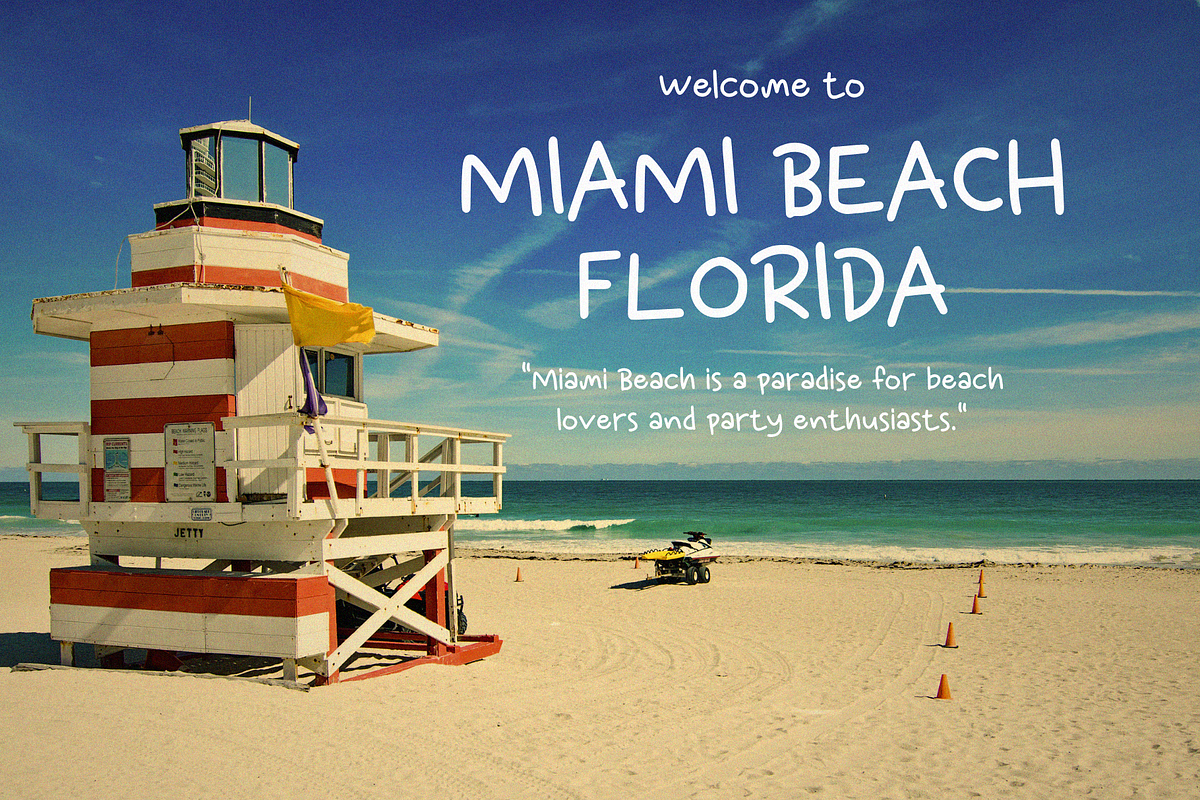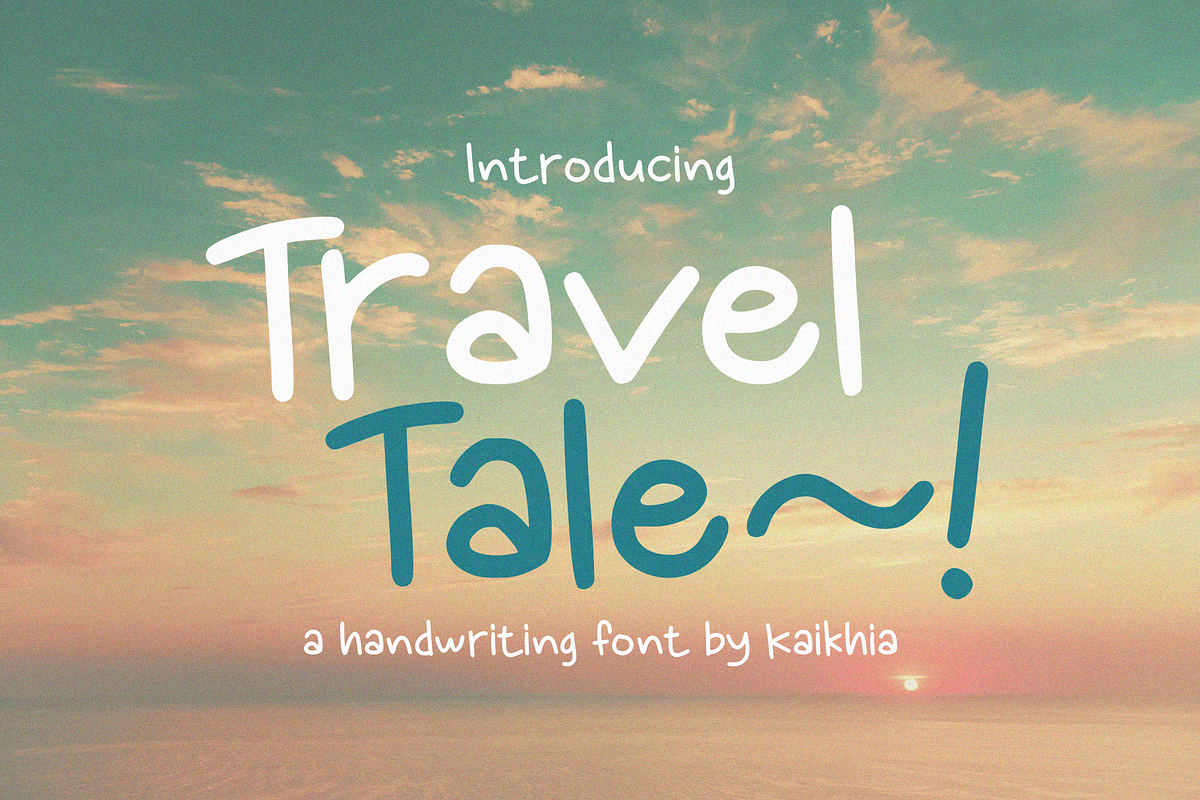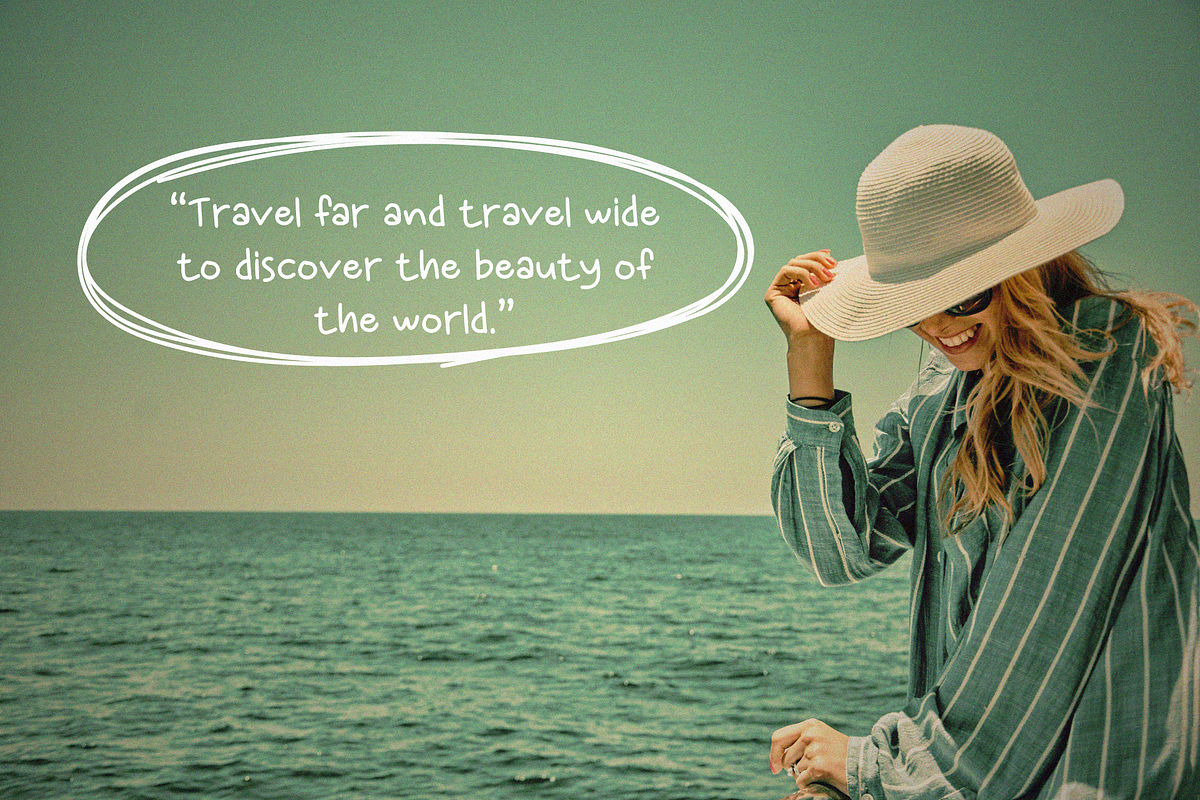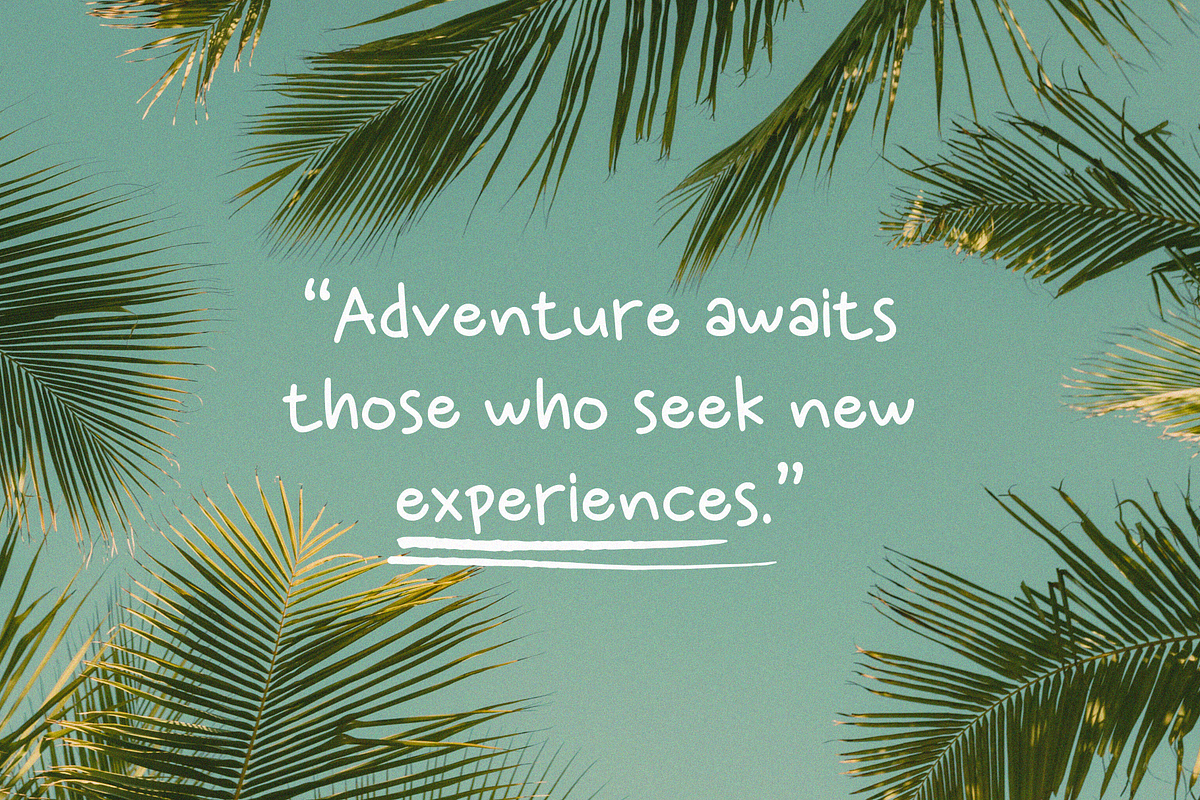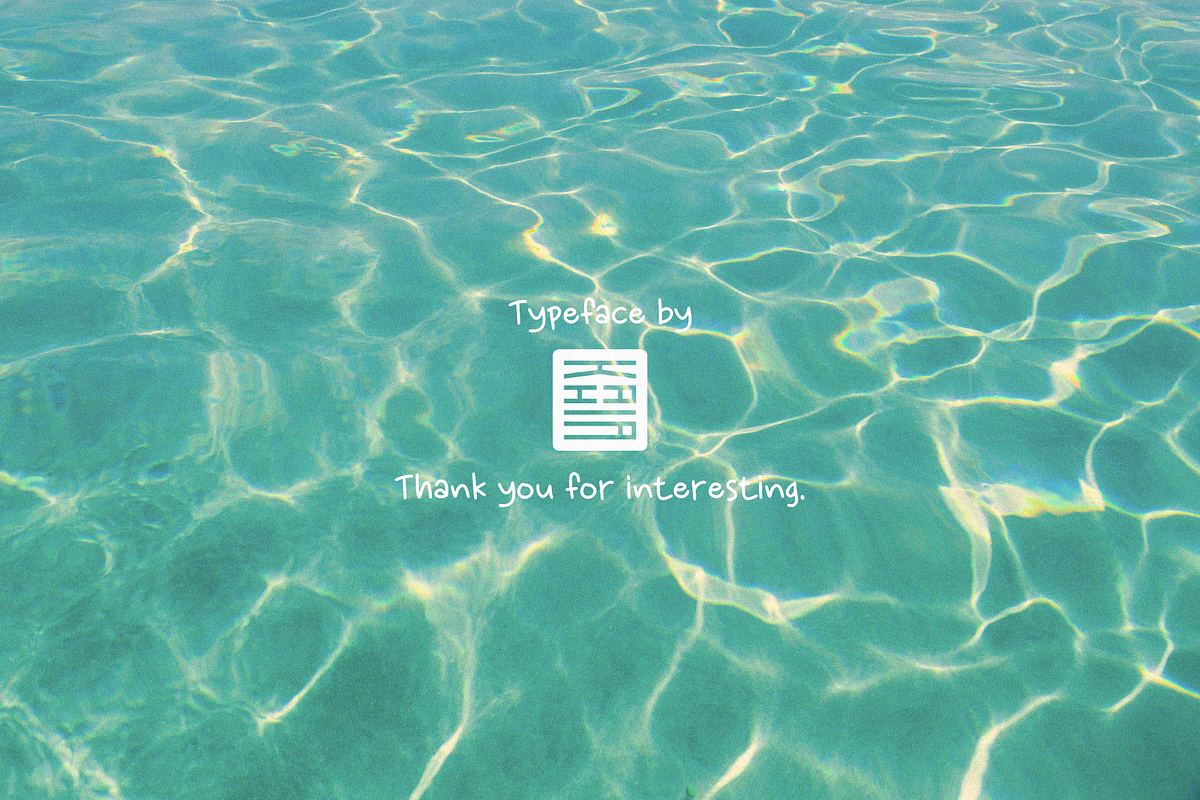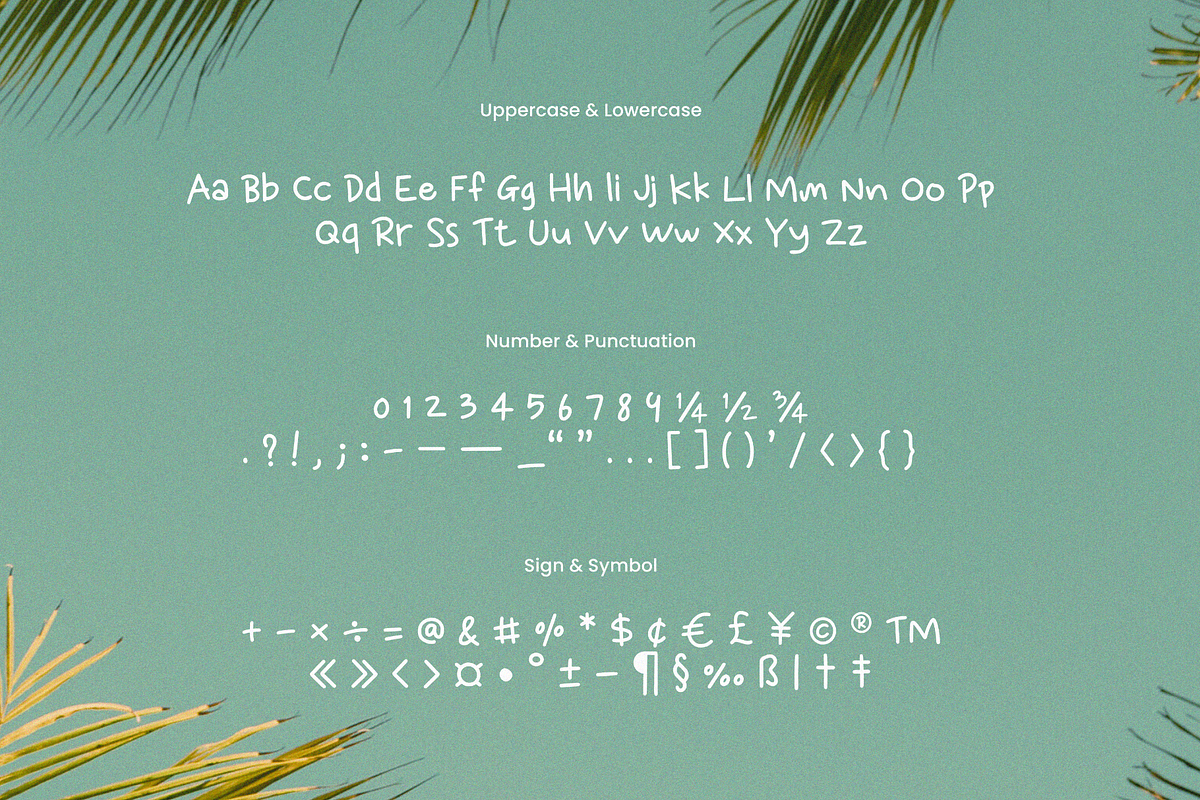
Travel Tale, Handwritten Font.
Introducing our new product, Travel Tale Font. Perfect for fun content such as travel blogs, travel videos, or vlogs, it adds a lively touch to your content. Additionally, Travel Tale Font is also suitable for projects like notebooks, posters, branding, logos, packaging, magazines, book covers, and more.